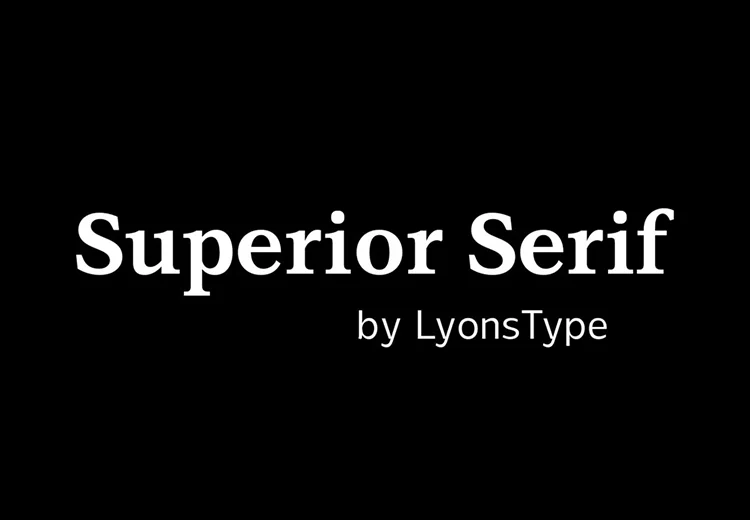
LT Superior Serif Font Family
LT Superior Serif is a free serif font family that masterfully balances timeless tradition with modern innovation. Characterized by clean lines, elegant forms, and subtly refined serifs, this typeface radiates sophistication and versatility. Its harmonious design ensures it performs beautifully across both printed and digital media, making it ideal for a wide range of applications.
Whether used for headlines or body text, LT Superior Serif adapts effortlessly, offering clarity and elegance. It is perfect for newspapers, magazines, logos, company stationery, or any project that demands professionalism and readability. Designed with comfort and efficiency in mind, this font delivers authenticity while meeting the diverse needs of contemporary design.